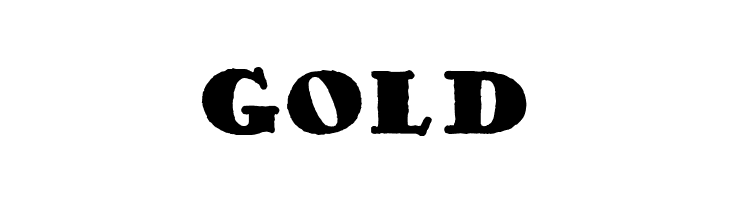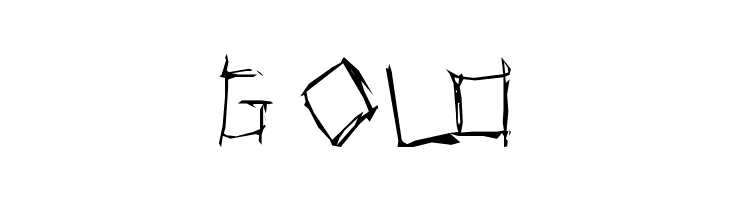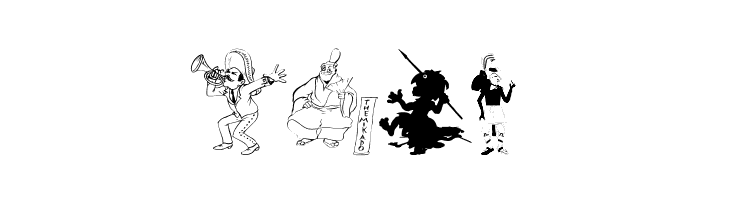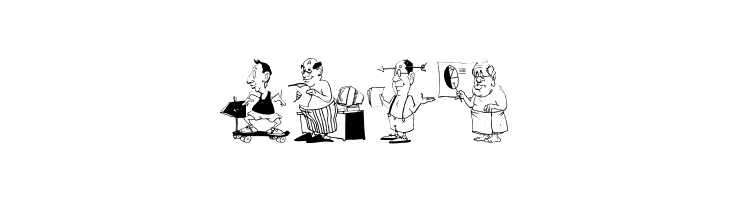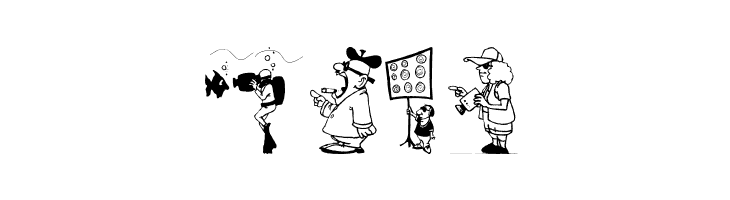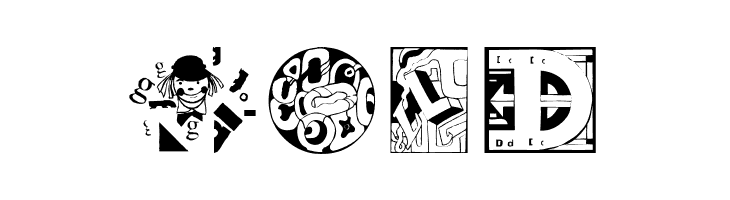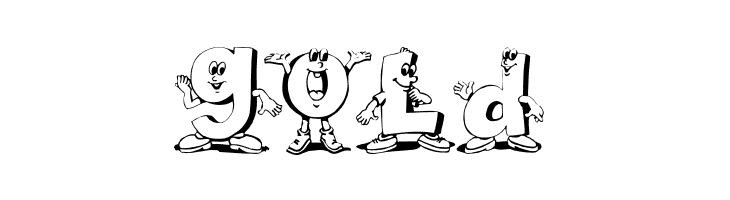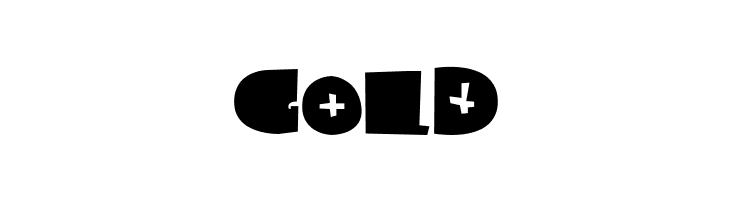
A playful, bold handwritten font with a lively and informal style.
A cartoonish, illustrative display font made from character drawings.
Bold geometric sans-serif letters within black circles.
Animal silhouette display font with bold, geometric shapes.
A fluid and elegant script font with dynamic letterforms.
A bold, playful font with rounded edges and a vintage feel.
A jagged, eerie font with elongated, scratch-like letterforms.
A bold, jagged font with a spooky, horror-themed design.
A bold, hand-drawn font with a raw and expressive style.
A bold, playful font with a distressed, artistic style.
A bold, graffiti-inspired font with angular, geometric shapes and a rebellious edge.
A whimsical font with apple-shaped characters, perfect for playful designs.
An organic, tree bark-inspired font with intricate, hand-carved details.
A graceful script font with fluid, cursive strokes and elegant curves.
A bold, geometric font with high contrast and a modern style.
A bold, geometric font with a modern, industrial feel.
A bold, distressed font with a grunge texture for a rugged, vintage look.
A bold, geometric font with a three-dimensional effect and intricate line work.
A playful, casual handwritten font with dynamic strokes and lively character.
A classic serif font with high contrast and elegant strokes.
A bold, geometric font with a striped, three-dimensional design.